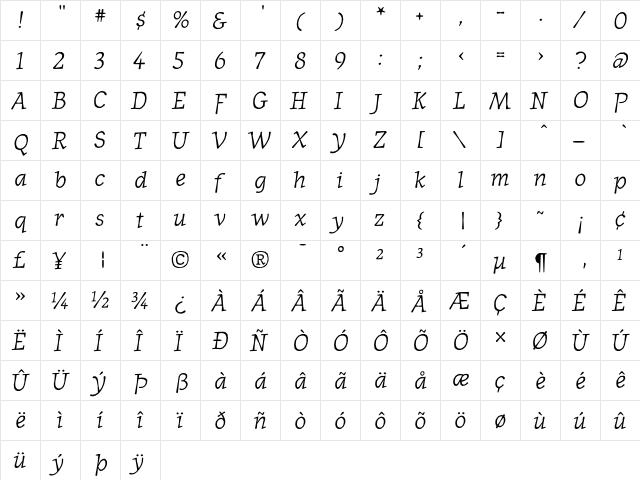
JournalItalicLining Regular
Design Context for JournalItalicLining Typeface
JournalItalicLining takes a measured approach to typography — its balanced proportions and neutral character make it a reliable workhorse for both digital and print work. The slanted form adds forward momentum and visual energy.
Pro Tip: Try JournalItalicLining for annotation and caption copy alongside an upright companion — the contrast in angle creates a dynamic but ordered typographic system.